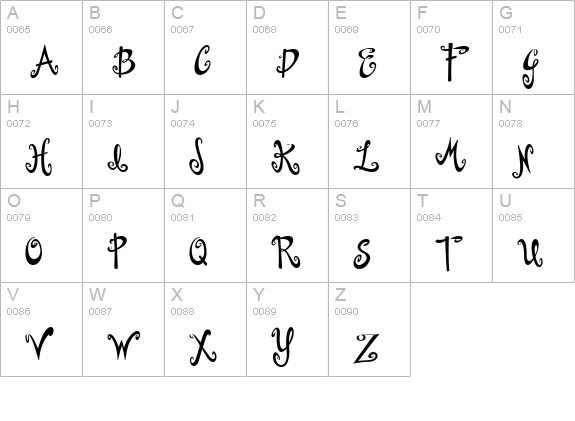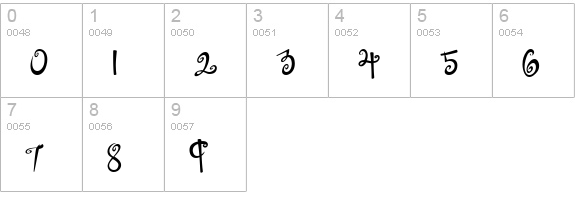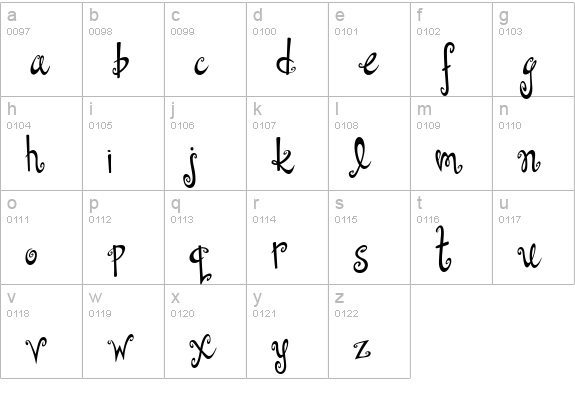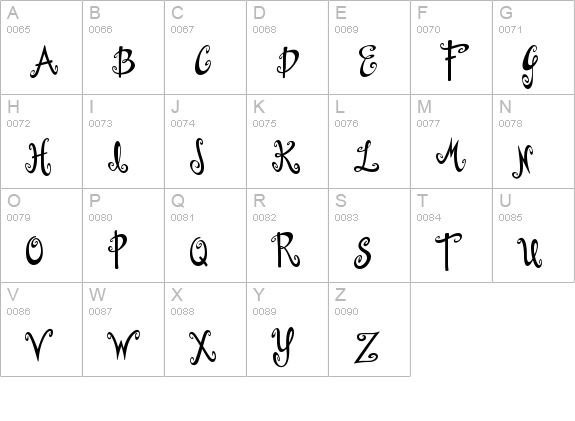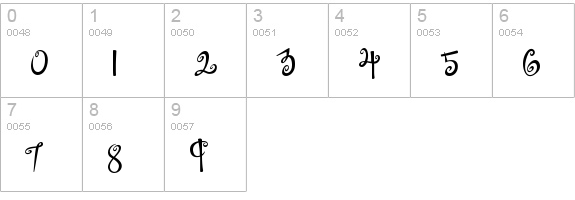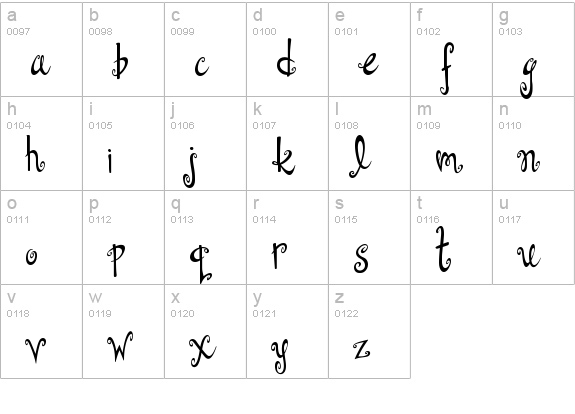
Dollhouse Medium Font Details
Dollhouse Medium is a balanced, medium-weight variant in the Dollhouse typeface family \xE2\x80\x94 well suited to sub-headlines, navigation, and balanced editorial work.
Dollhouse Medium font is a charming and whimsical typeface that exudes a playful and feminine aesthetic. Its delicate strokes and unique design make it perfect for adding a touch of elegance to any project. Whether you're creating invitations, greeting cards, or branding materials, Dollhouse Medium font will infuse your designs with a sense of sophistication and charm. This versatile font is ideal for a wide range of design projects, from wedding stationery to social media graphics. Its medium weight strikes the perfect balance between readability and style, making it suitable for both headings and body text. Dollhouse Medium font is sure to captivate your audience and leave a lasting impression. The best part? Dollhouse Medium font is available for free download at FontsMarket.com. You can easily access this delightful typeface and start incorporating it into your designs today. Don't miss out on the opportunity to enhance your projects with the beauty and grace of Dollhouse Medium font. Download it now and let your creativity shine!